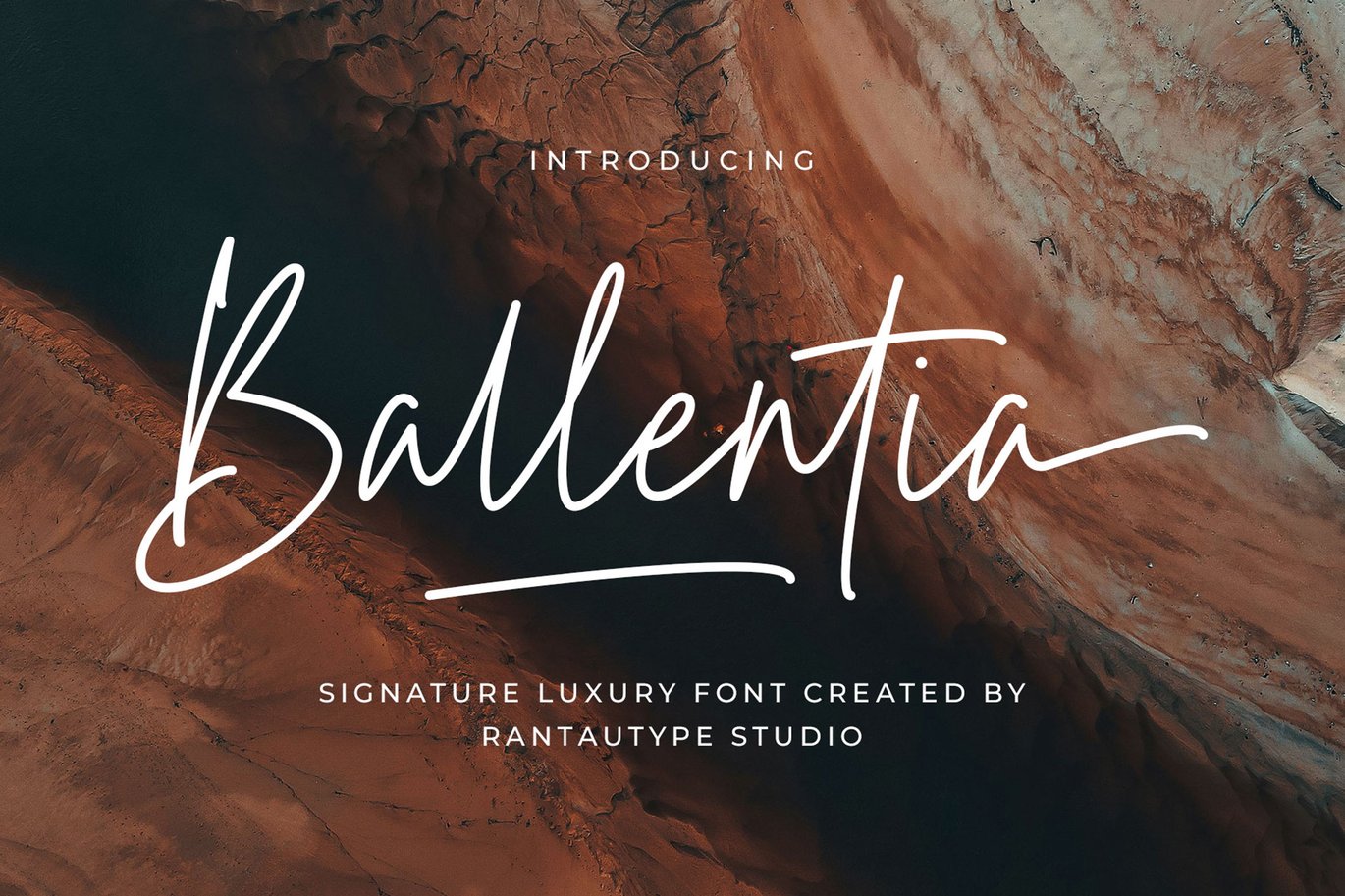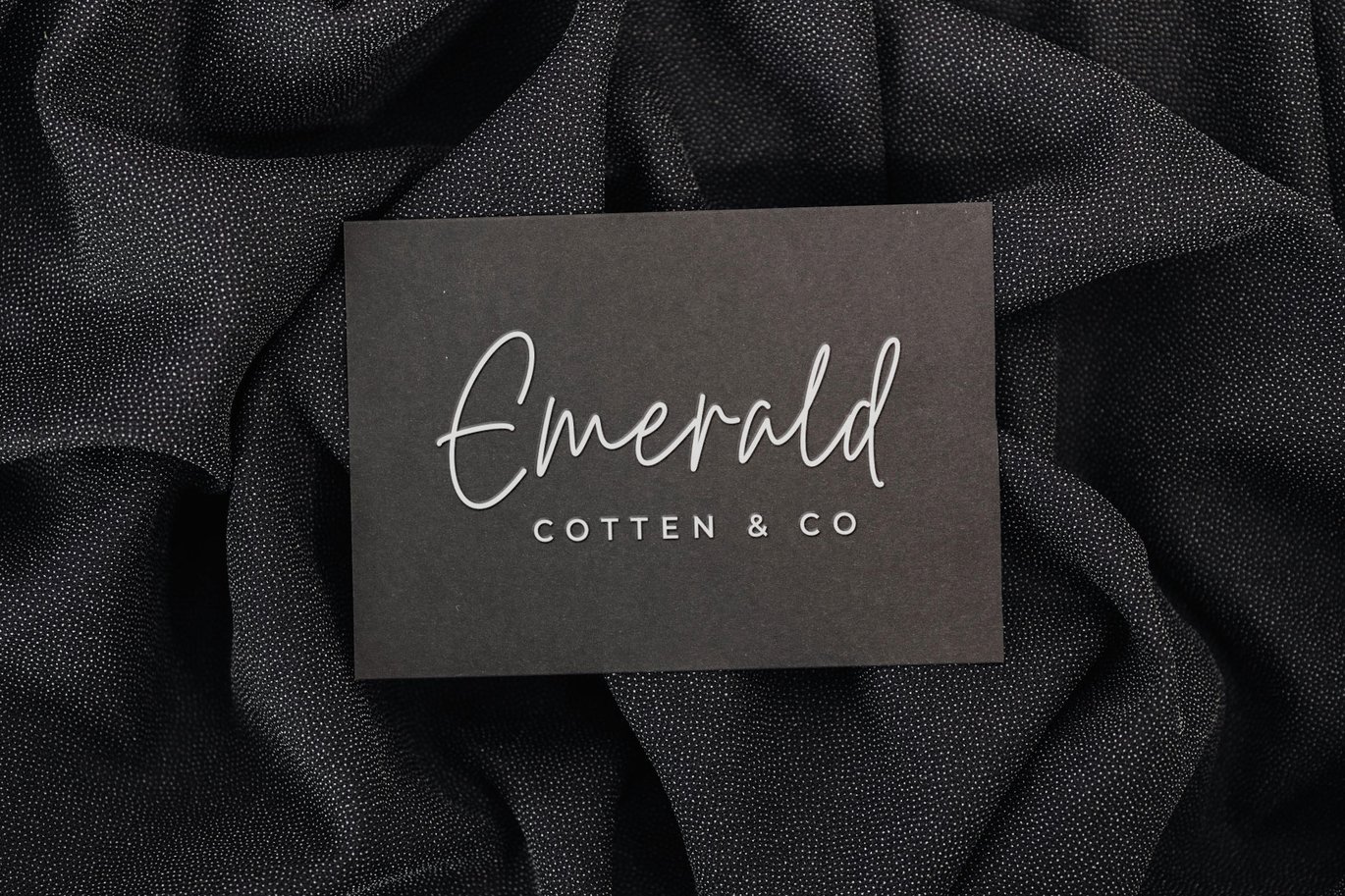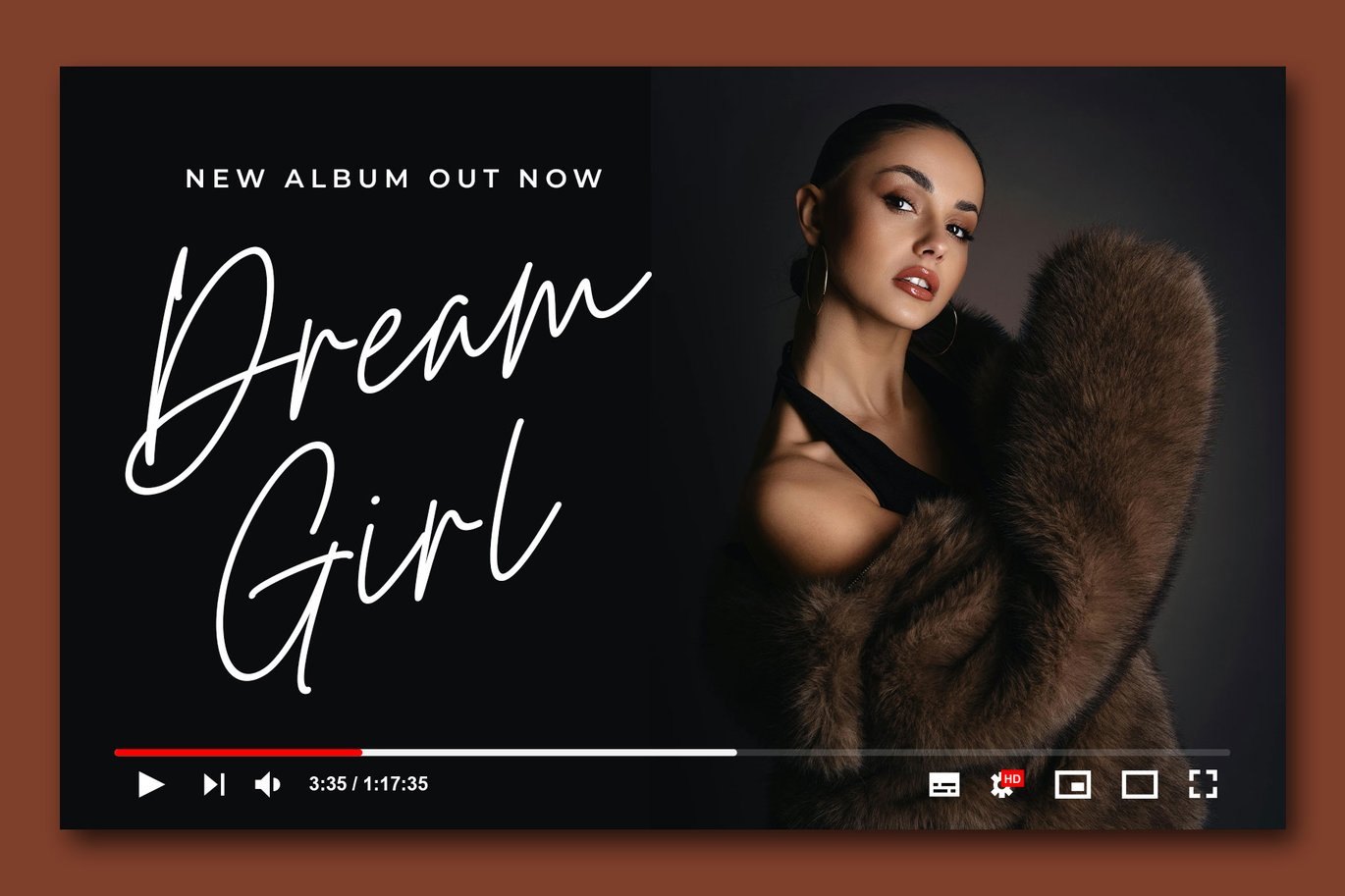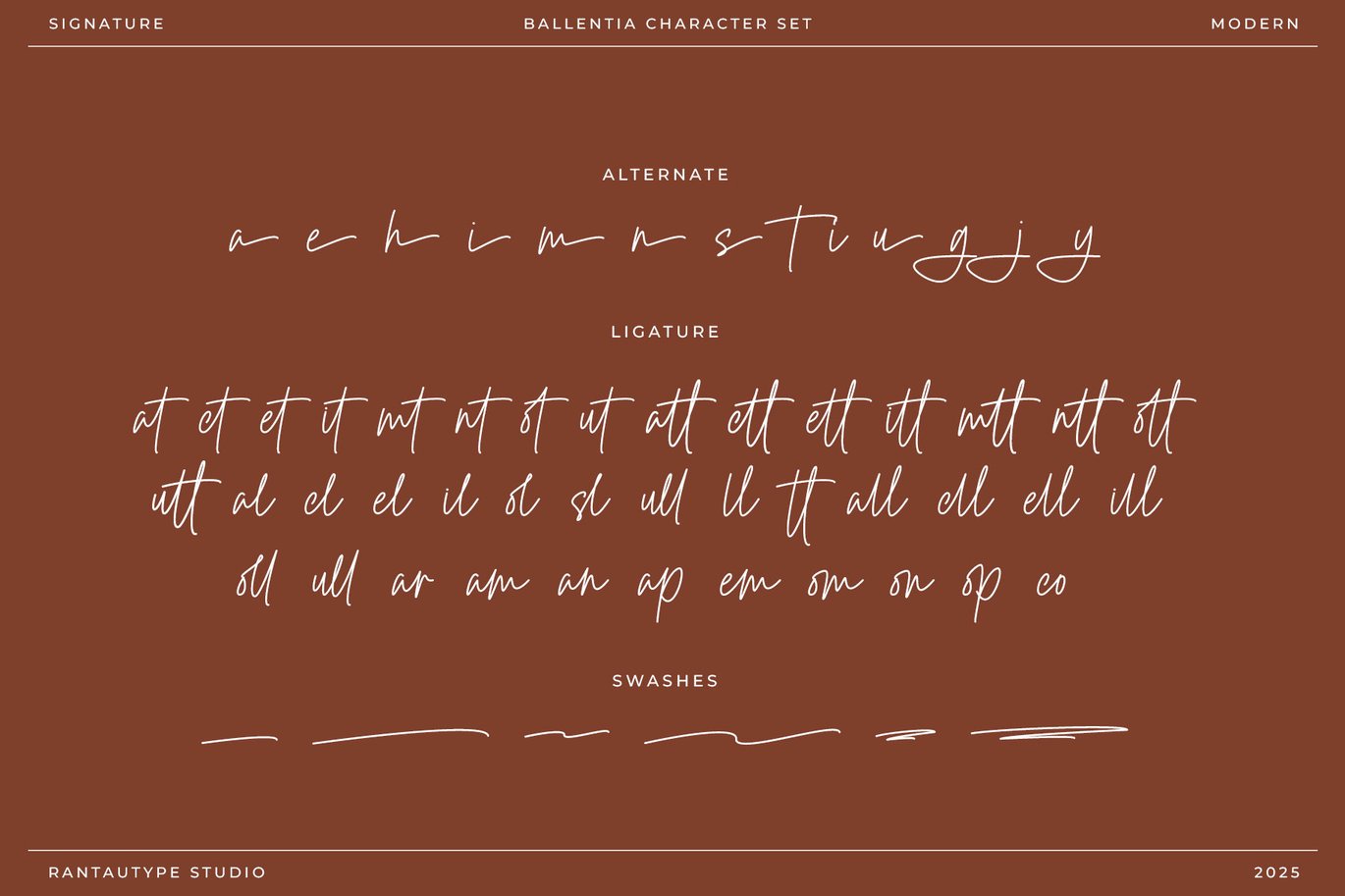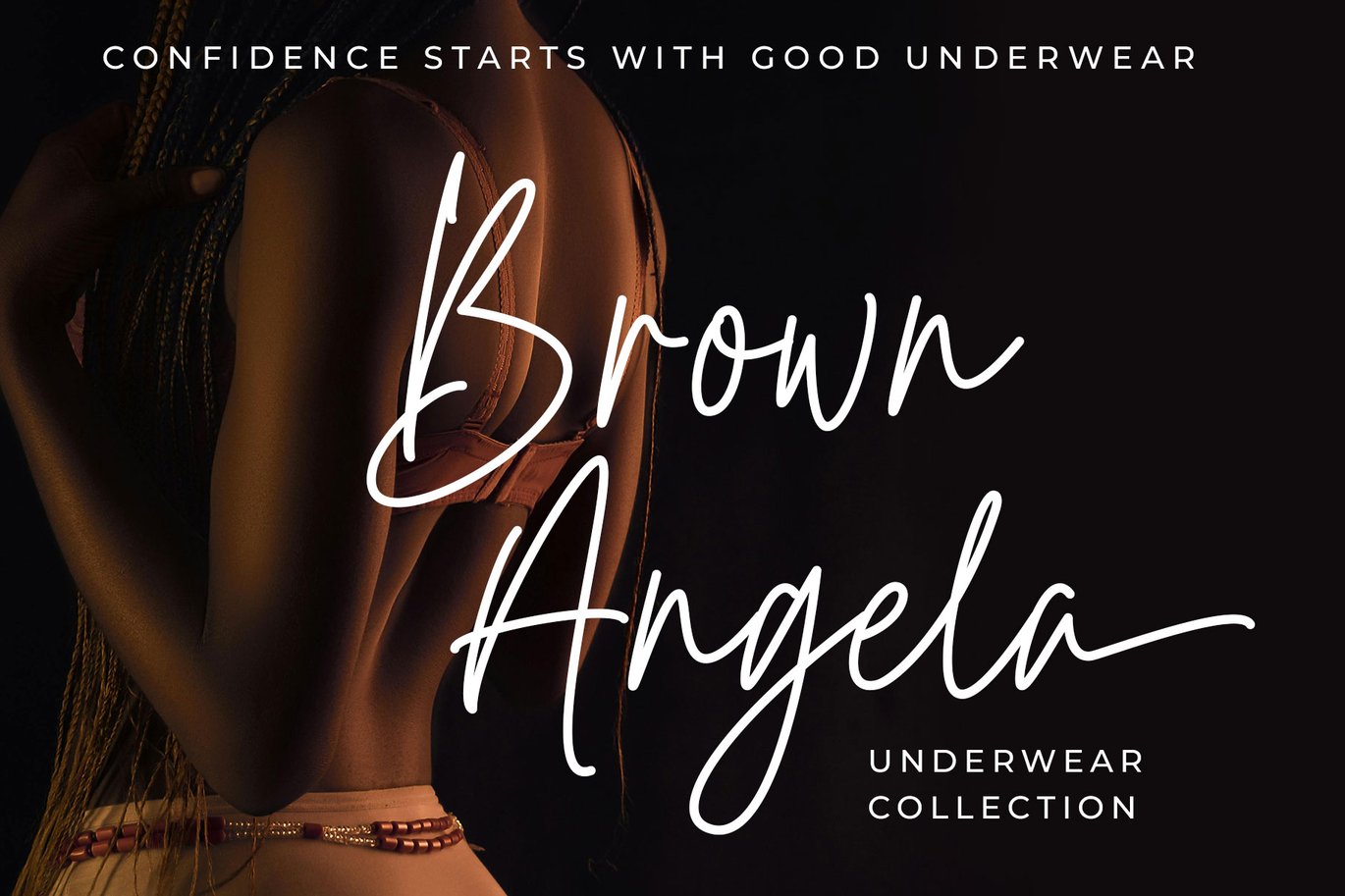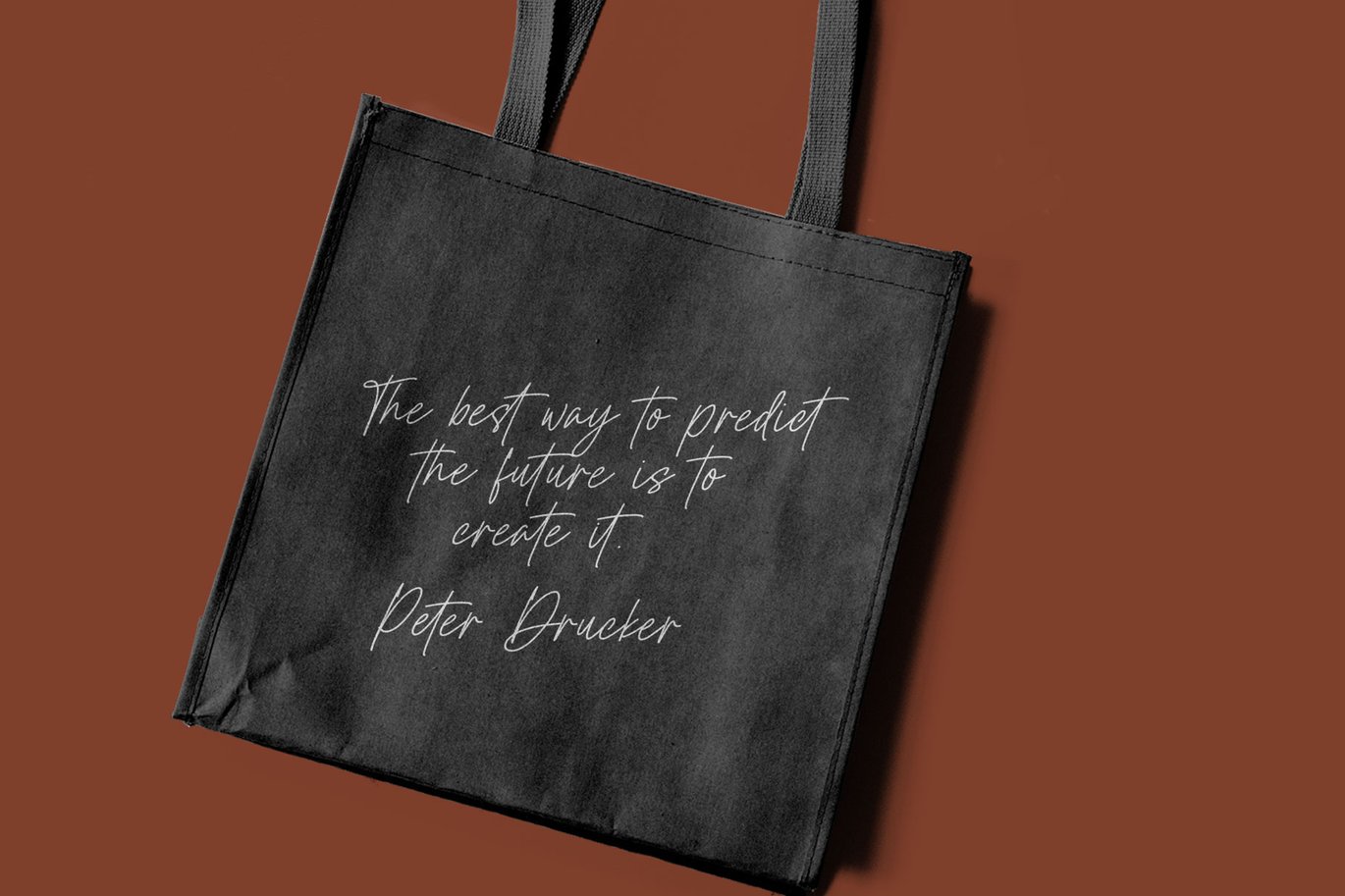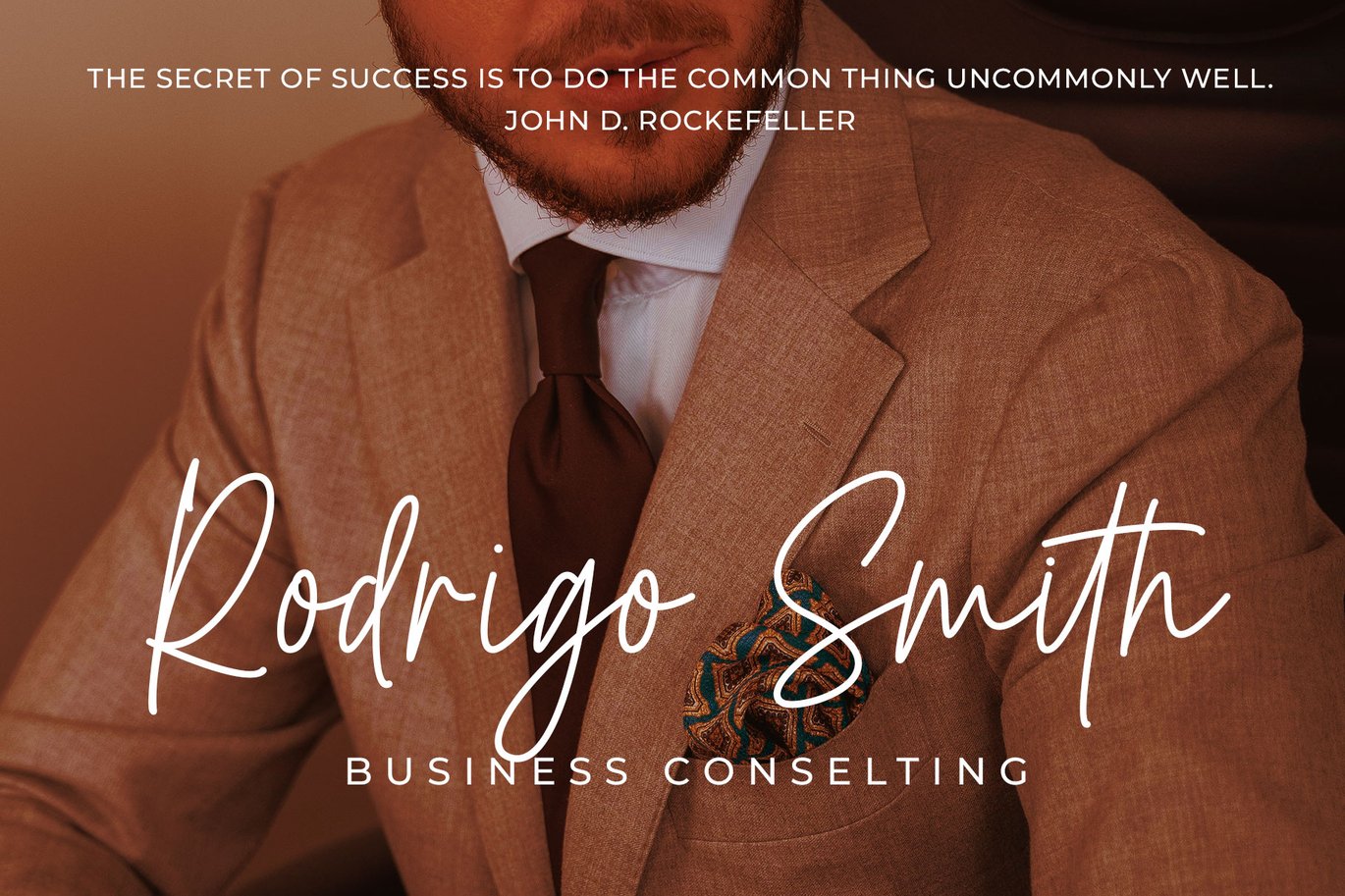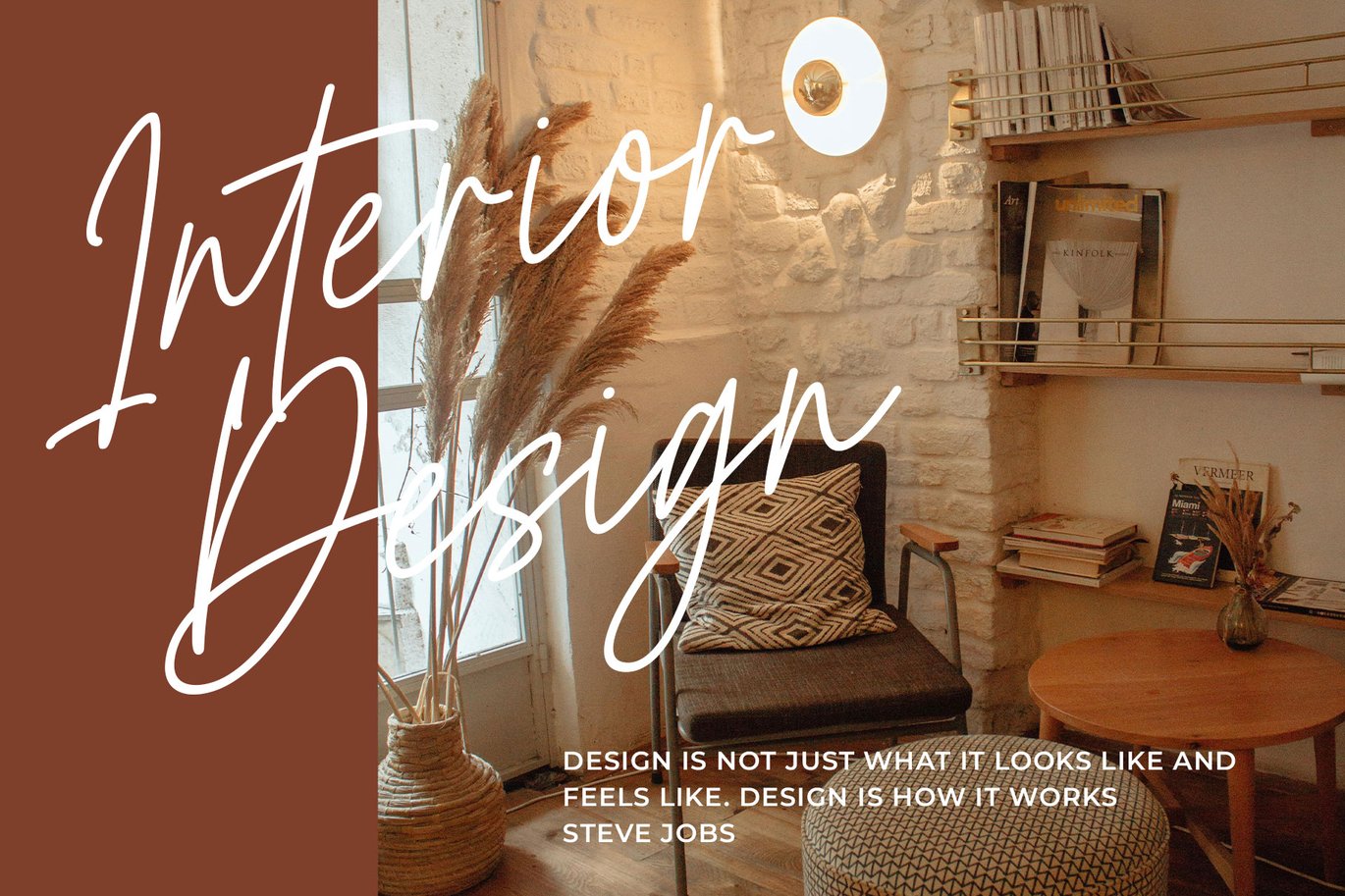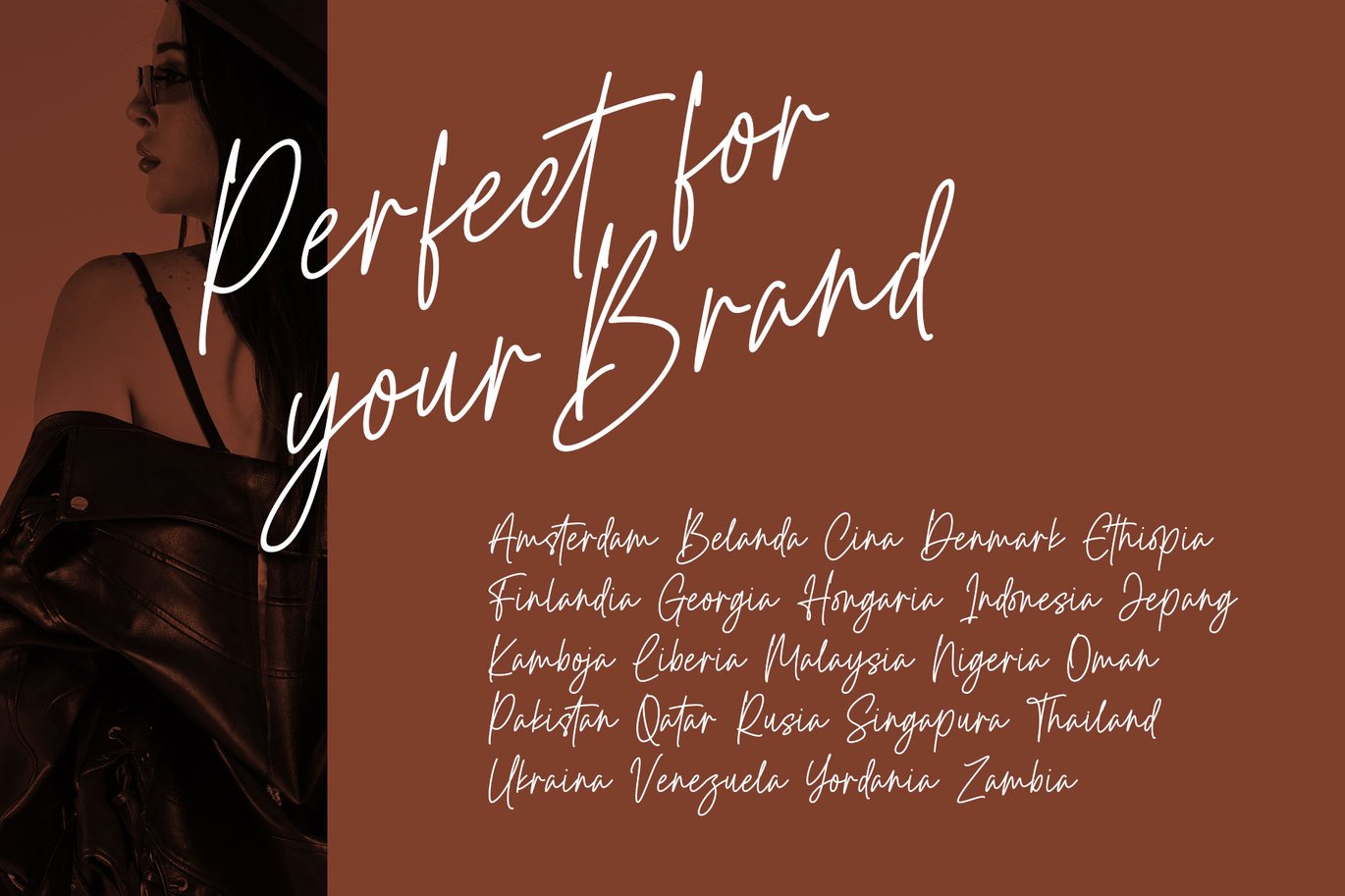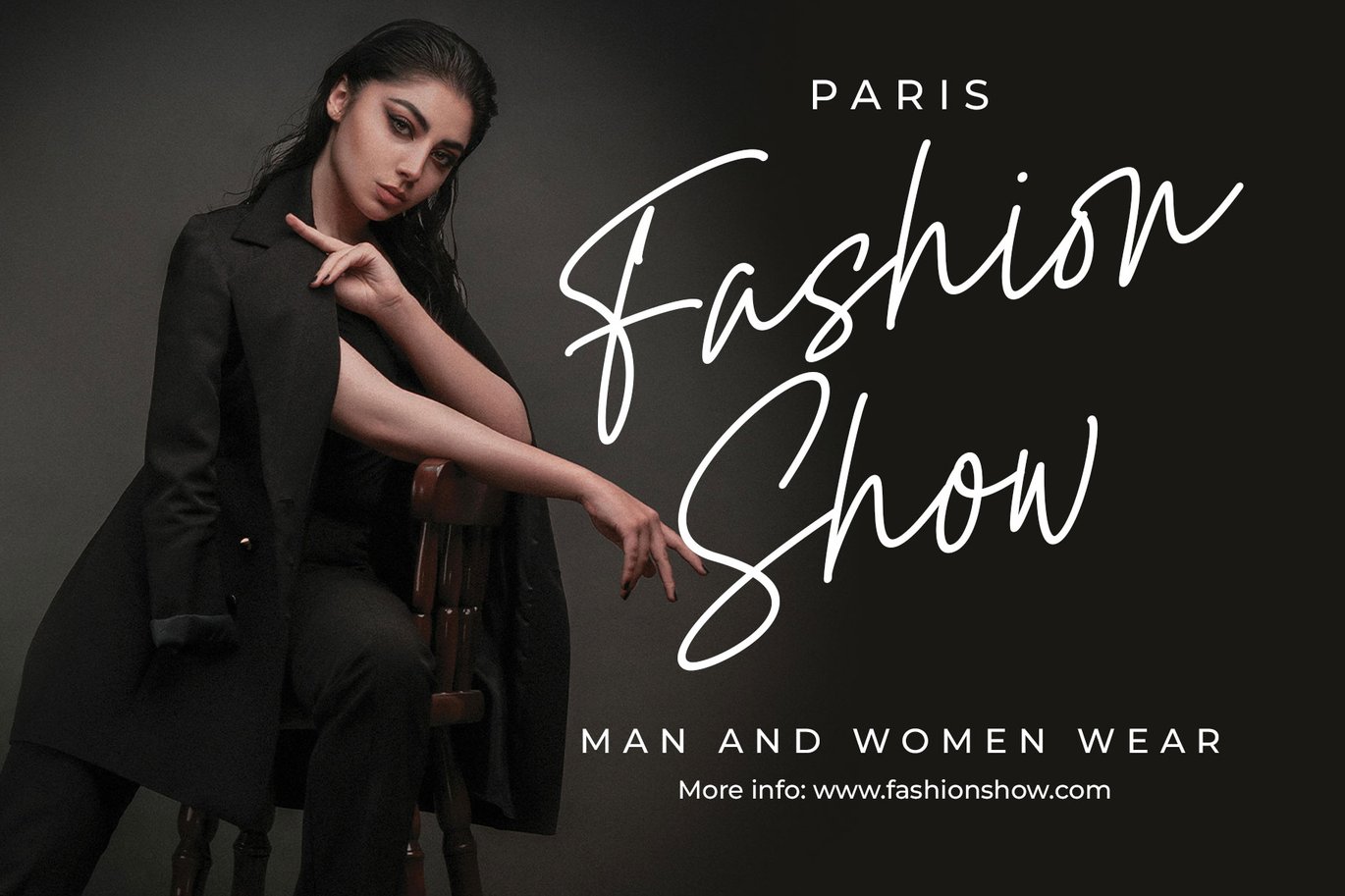
Ballentia Signature Luxury Font
Ballentia a signature luxury font is a sophisticated and elegant typeface that embodies exclusivity, refinement, and high-end aesthetics. These fonts often mimic the fluidity of a handwritten signature, exuding a sense of personal touch and prestige. Ballentia is a perfectly choice for any creative endeavor, creating, modern, chic, lifestyle design such as logotype, title, cover, branding, invitations, wedding designs, display and magazine, social media posts, advertisements, printed quotes, product packaging, corporate brand, product designs, labels, photography, watermarks, special events and any other project with modern touch.
- Ligature and alternate